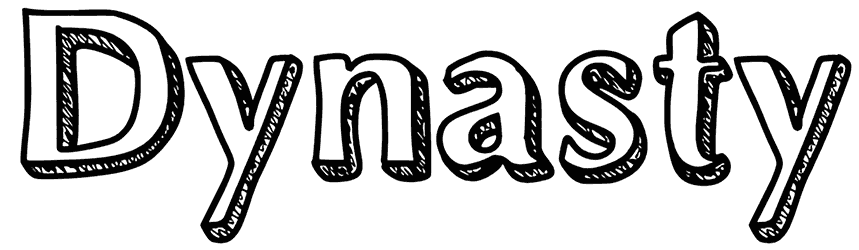
Dynasty Font
Adding a drop shadow to your text is a great way to make your headlines stand out and create an attractive effect for your typography. But what if you have a 3D font that already has a shadow effect? This is exactly what you can find in Dynasty.
This sketch font, which has a cool 3D look, works just as well for creating a children-themed banner as it does for greeting cards and flyers.